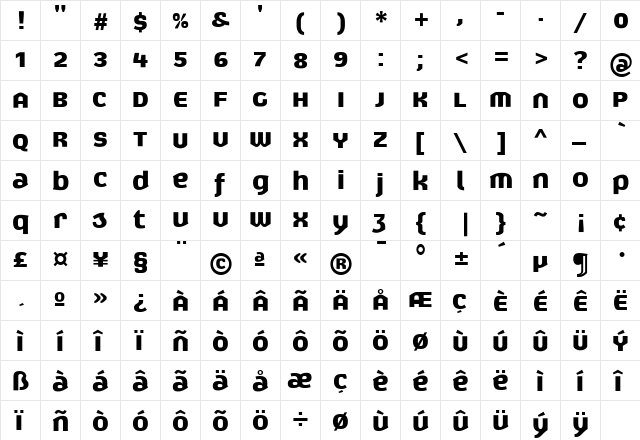
Exert Bold
Design Context for Exert Typeface
Exert takes a measured approach to typography — its balanced proportions and neutral character make it a reliable workhorse for both digital and print work. The heavy weight commands attention and anchors typographic hierarchies.